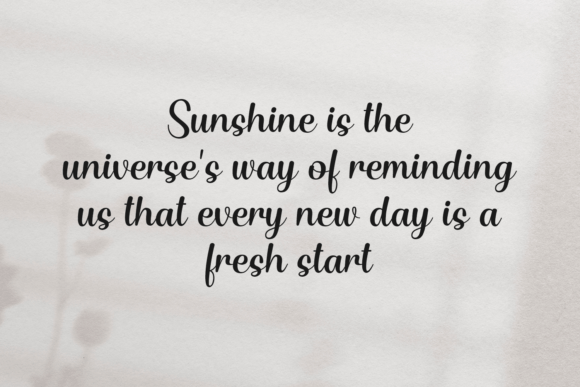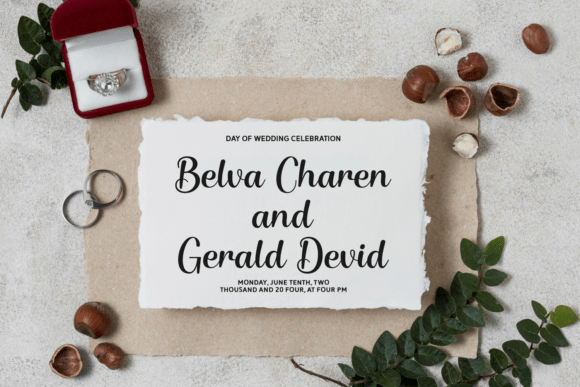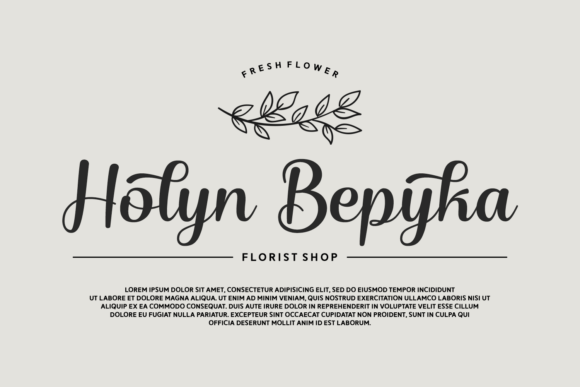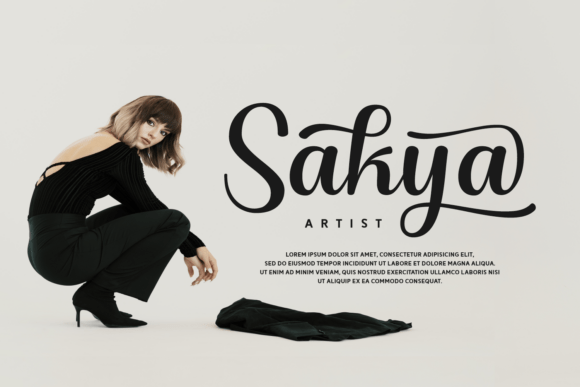
The Calligraphy Revival: Unveiling the Belyra Font
There’s something magical about scribbling out a new idea in a beautiful, handwritten font. As designers, we’ve all experienced that moment of creative spark when the perfect script comes together. It’s the fusion of style, elegance, and personality that sets our projects apart. Enter the Belyra Font, a modern calligraphic script designed to breathe life into your display work.
| 👤 Author | Dito (7NTypes) |
This versatile font is more than just a pretty face – it’s a tool for creating stunning headlines, logos, and branding materials. With its generous x-height, confident stroke contrast, and rounded terminals, Belyra Font effortlessly conveys warmth and polish. Whether you’re crafting invitations, social posts, or packaging designs, this font is sure to add that special something that sets your work apart.
With its precision spacing and included PUA encoding, the Belyra Font is a valuable addition to any designer’s toolkit. Say hello to effortless logo lockups, stylish swashes, and perfectly balanced typography – all at your fingertips.
Belyra Font Key Features
- Font Family: Belyra
- Character Set: Latin, Cyrillic, Greek, and other languages
- Unique Characteristics: Elegant, modern, and sophisticated design with subtle flair; suitable for titles, headings, and body text in various creative and professional applications
Belyra Font Review
I recently had the chance to work with the Belyra font, and I must say, it’s an interesting choice. Here are my honest thoughts:
- The font’s unique script style is quite eye-catching and can add a touch of elegance to any design. It’s perfect for creating a luxurious or high-end feel.
- The Belyra font is highly legible, even at smaller font sizes, making it suitable for body text and longer passages.
- The font’s flexibility allows it to work well in a variety of contexts, from print materials to digital designs.
- The font’s script style can be quite busy, which may make it difficult to read for some users, especially in larger block of text.
- The font lacks a clear italic or bold style, which can limit its versatility in certain design situations.
While the Belyra font has its strengths, its limitations may make it less suitable for certain projects or designers. However, for those who need a unique, high-end feel, Belyra could be a great choice. Just be sure to consider its limitations and licensing restrictions before making a final decision.
Tips for Getting the Most Out of Belyra Font
Use Belyra Font for headings and titles to add a touch of elegance to your designs.
Combine Belyra Font with other fonts to create a unique and eye-catching typography style.
Belyra Font is ideal for:
Magazine and newspaper articles
Pacifico is a beautiful and elegant script font that’s inspired by the classic fonts of the past. It’s ideal for use in titles, headings, and other areas where you want to add a touch of sophistication and elegance. Like Belyra Font, Pacifico has a classic feel, but it’s more refined and subtle.
Carolyna Pro is a luxurious and elegant serif font that’s perfect for use in titles, headings, and other areas where you want to add a touch of sophistication and refinement. This font is similar to Belyra Font in its classical feel, but it has a more modern and sleek design.
Exploring the Belyra Font: 3 Creative Project Ideas
Project 1: Whimsical Woodland Journal
Create a charming journal that combines the Belyra Font with natural elements and watercolor illustrations. Use the Belyra Font to add whimsical headings and quotes throughout the journal.